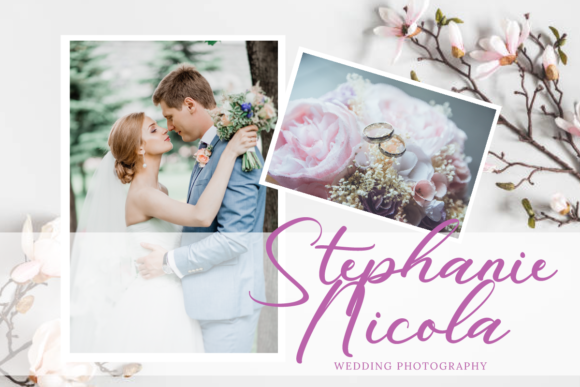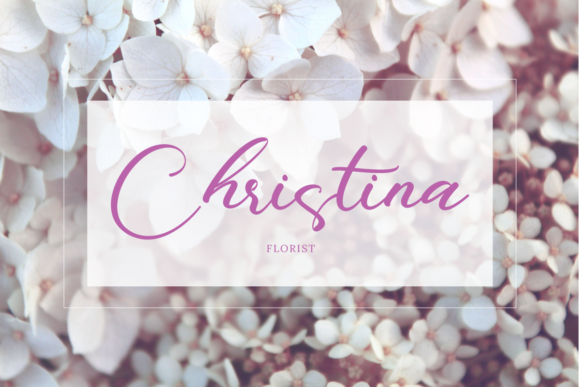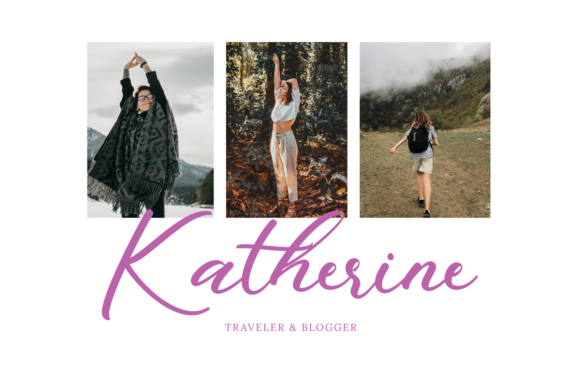
Introduction to Sarahi Maribel Font
Imagine you’re brainstorming ideas for a client’s wedding invitation, and suddenly, a vision of elegant script and delicate lines appears in your mind. You envision the perfect blend of sophistication and romance, and you know exactly which font will bring that vision to life – the Sarahi Maribel Font. This stunning, thin-lettered script font has captured the hearts of designers worldwide, and it’s about to become your go-to design resource for any high-quality, creative project.
Whether you’re a seasoned pro or a design enthusiast, the Sarahi Maribel Font is an absolute must-have for your design library. Its ravishing style and versatility make it perfect for creating beautiful stationery art, eye-catching social media posts, and so much more. And the best part? You can download the Sarahi Maribel Font for free, complete with a transparent background, making it easy to incorporate into any design project.
- Features a unique, elegant design style perfect for adding a touch of sophistication to any project.
Honest Review: Sarahi Maribel Font
I recently stumbled upon the Sarahi Maribel Font while searching for a free design resource for a creative project. The font caught my eye due to its unique and playful style, making it perfect for adding a touch of personality to my design.
- Unique and playful style, perfect for creative projects
- High quality, making it suitable for professional designs
While the Sarahi Maribel Font is a great resource, I did find a few limitations. The font may not be suitable for formal or corporate designs due to its playful style. Additionally, the font may not be as versatile as other fonts, limiting its use in certain creative projects.
Overall, I’m impressed with the Sarahi Maribel Font. It’s a great addition to any designer’s collection and is perfect for adding a touch of personality to creative projects. With its unique style and high quality, I highly recommend giving it a try.
Common Use Cases for Sarahi Maribel Font
The Sarahi Maribel Font is perfect for a variety of creative projects, including social media graphics, blog posts, and marketing materials. It’s also great for designing invitations, posters, and flyers.